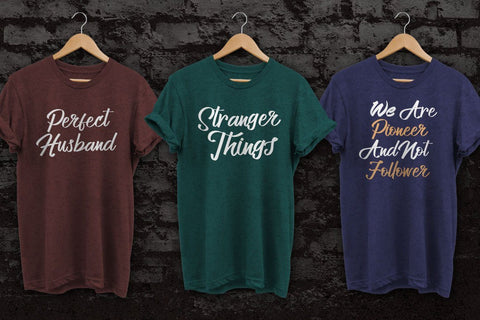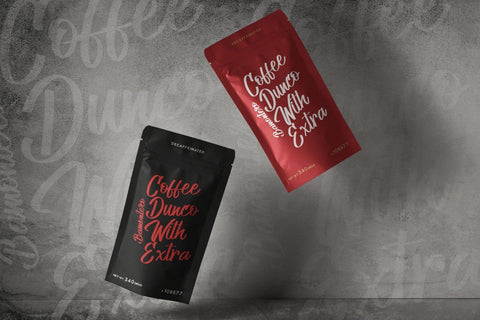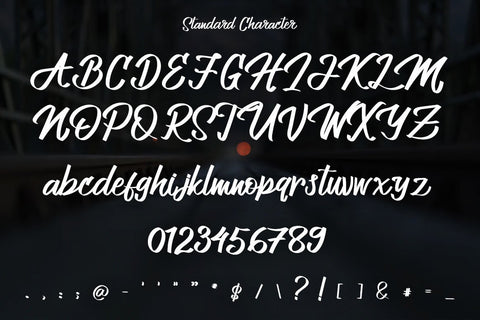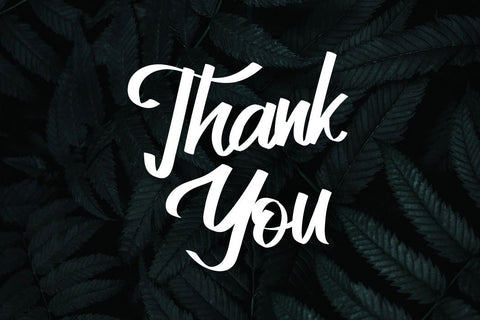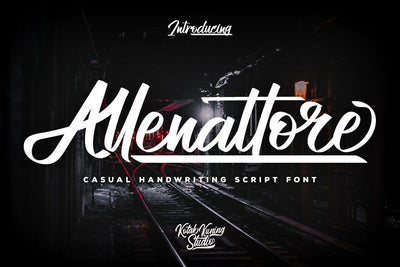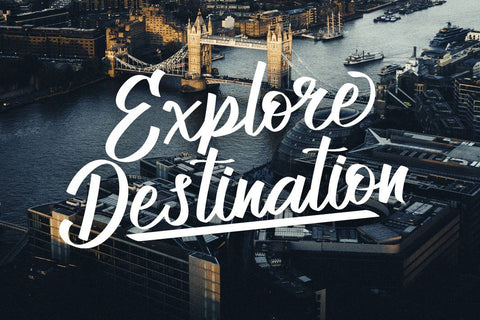
Allenattore Font - Casual Script
A casual script typeface and combination with Hand Lettering style which gives more handwriting touch and makes the font looks being customized.
This font is suitable to use as a logotype, product designs, label, watermark, social media posts, apparel, invitation, signboard, sport club, motor / car, special events or anything that need handwriting taste.